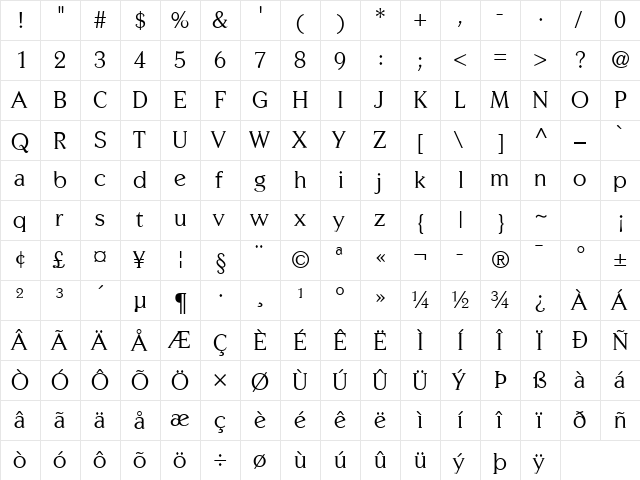
Centabel Book Font Preview
Centabel Book Centabel Book
Centabel Book Font Details
Design Context for Centabel Book Typeface
Centabel Book takes a measured approach to typography — its balanced proportions and neutral character make it a reliable workhorse for both digital and print work.